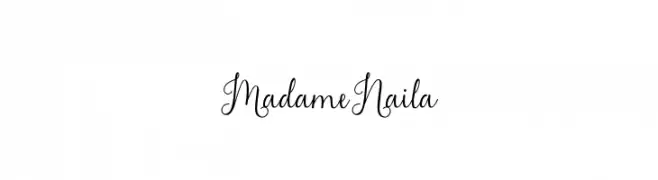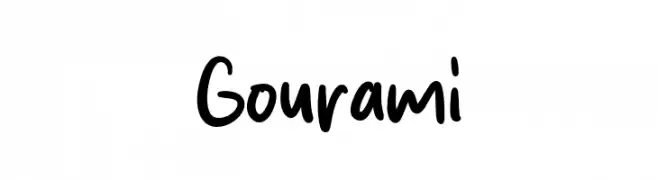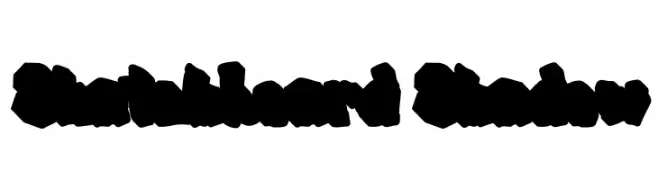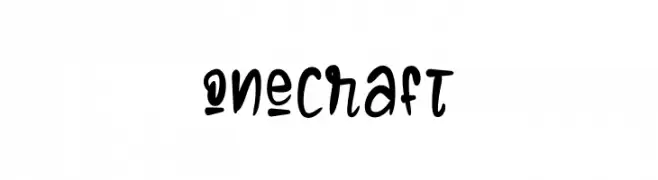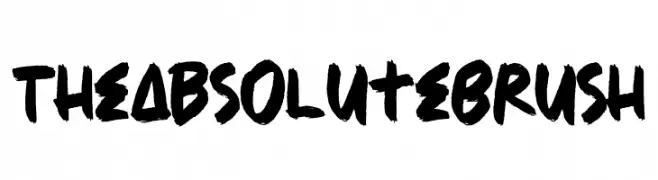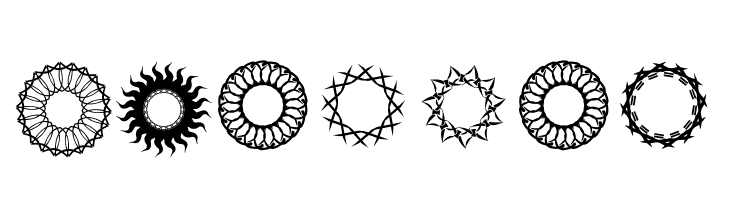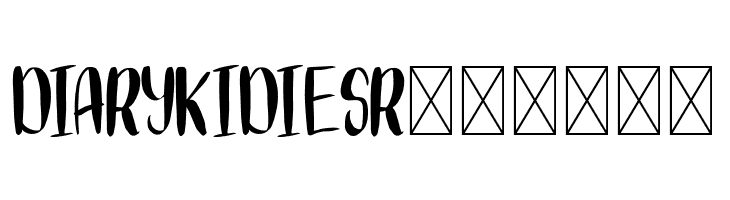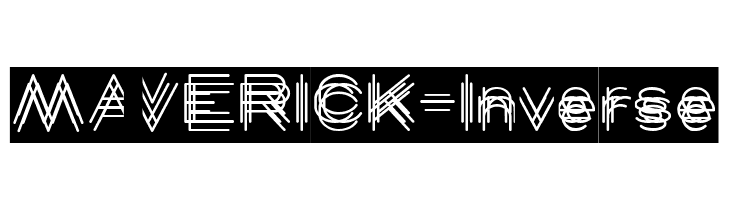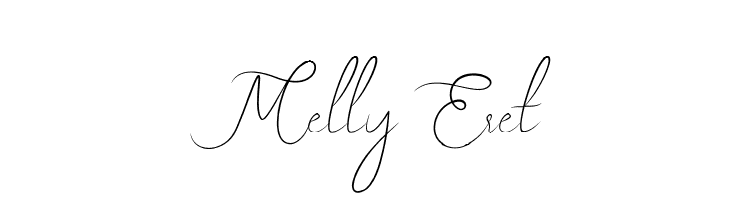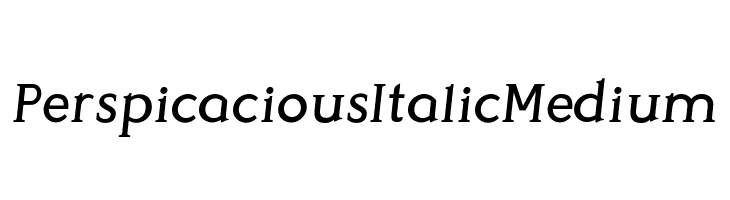
An elegant script font with intricate loops and swirls, perfect for refined and artistic projects.
A playful, casual handwritten font with smooth, flowing curves.
A bold, shadowed font with a playful, artistic style.
A bold, geometric typeface with strong, angular shapes and a modern aesthetic.
A bold, playful handwritten font with smooth, rounded strokes.
A bold, expressive handwritten font with fluid strokes and a casual style.
A bold, geometric font with a modern and futuristic aesthetic.
A bold, expressive brush-style font with a hand-painted appearance.
A retro-inspired font with striped detailing and geometric structure.
A bold, condensed, and italicized font with high contrast and sharp angles.